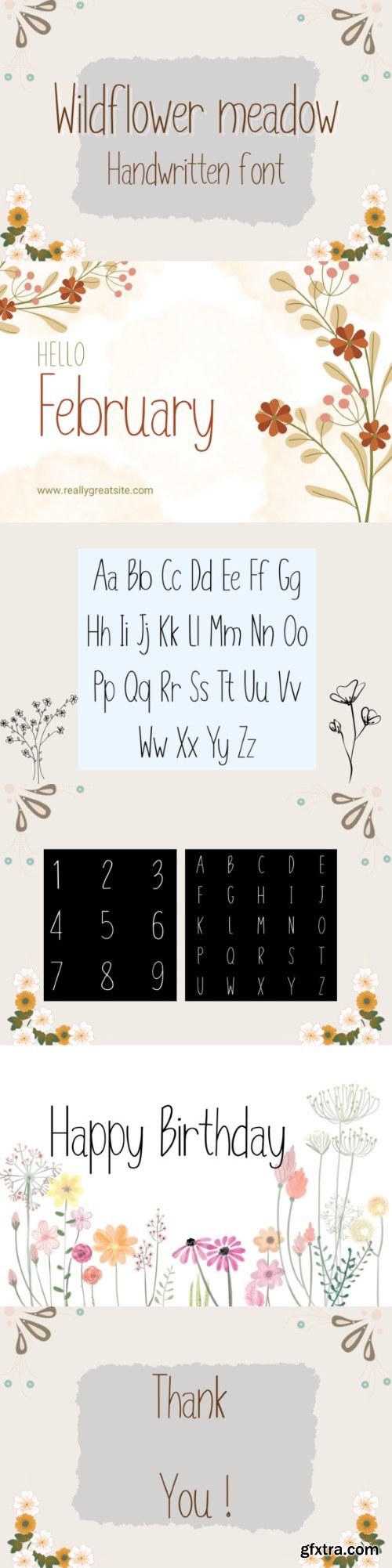
野花 Meadow 字体
Wildflower meadow font is a sweet and friendly handwritten display font. Cute and fun, this font is ideal for crafts, digital design, presentation or writing wedding invitation, cards,or any other design that might need a fun touch! It is ideal for use in school for both teachers and students.